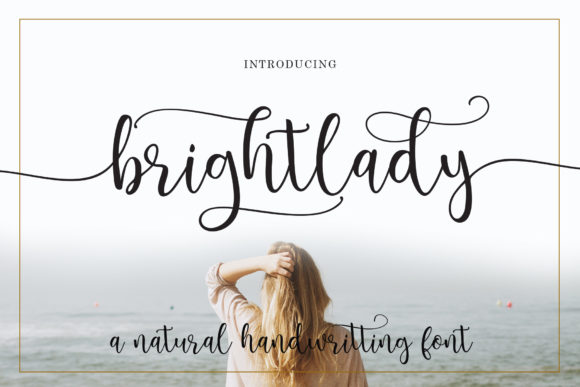
**Brightlady Font: The Epitome of Elegance and Finesse**
In a world of monotonous typefaces, Brightlady Font emerges as a beacon of creativity and distinction. This captivating script font, meticulously crafted by the talented Sulthan Studio, is a testament to the enduring power of handwritten beauty. Brightlady seamlessly blends the timeless charm of calligraphy with a modern, refreshing aesthetic, resulting in a font that is both classic and contemporary.
**Unleash Your Inner Artist with Brightlady Font**
With Brightlady Font, you hold the key to unlocking your creative potential. Its effortlessly elegant style lends itself perfectly to a wide range of design projects, from wedding invitations and greeting cards to social media posts and marketing materials. Whether you're a seasoned designer or just starting your creative journey, Brightlady Font is the perfect tool to elevate your work to new heights.
**Effortless Elegance for Every Occasion**
Brightlady Font's innate elegance makes it the ideal choice for any project that demands a touch of sophistication. Its graceful curves and sweeping lines add a sense of timeless beauty to any design. From elegant wedding invitations to heartfelt love letters, Brightlady Font effortlessly conveys your message with a touch of class and refinement.
**A World of Creative Possibilities at Your Fingertips**
The versatility of Brightlady Font knows no bounds. Its carefully crafted glyphs and swashes open up a world of creative possibilities. With over 450 characters and multiple stylistic alternates, you'll have everything you need to create truly unique and eye-catching designs. Unleash your imagination and let Brightlady Font guide you on a journey of creativity and self-expression.